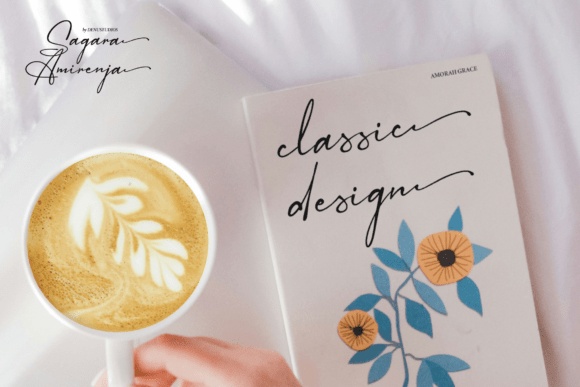
Sagara Amirenja Font
Sagara Amirenja is a timeless signature font, perfect for a variety of projects, including logos, branding, homeware designs, product packaging, mugs, quotes, posters, shopping bags, t-shirts, book covers, business cards, invitations, greeting cards, labels, photography watermarks, special events, and more. Add a touch of classic elegance to your creative work with this stylish font.
Sagara Amirenja Signature Script Font